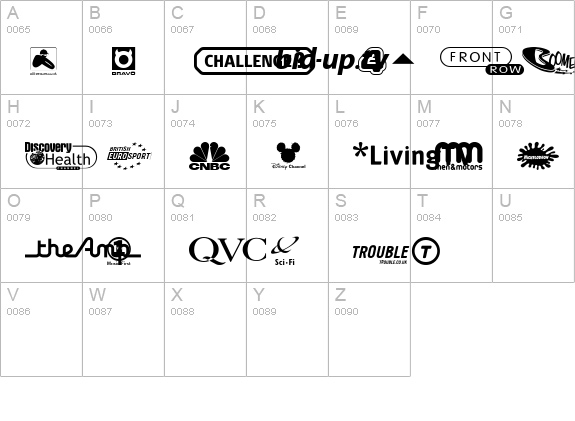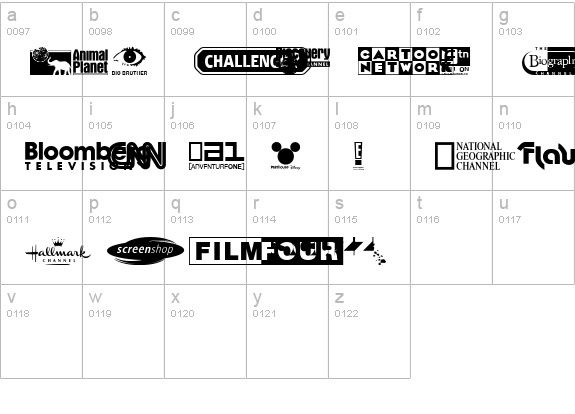
UK Digital TV Channel Logos Font Details
Introducing the UK Digital TV Channel Logos font, a versatile and visually appealing typeface designed specifically for digital television channel logos in the United Kingdom. This font is the perfect choice for broadcasters, designers, and anyone looking to create professional and eye-catching TV channel logos. With its sleek and modern design, the UK Digital TV Channel Logos font effortlessly captures the essence of the digital era, making it the ideal companion for any digital TV brand. Its clean lines and bold letterforms ensure maximum legibility, even at small sizes, ensuring that your channel logo will always stand out. What sets the UK Digital TV Channel Logos font apart is not just its impeccable design, but also its accessibility. This font is freely available to download at FontsMarket.com, making it accessible to everyone, regardless of budget constraints. Now, you can create stunning TV channel logos without having to worry about expensive licensing fees. Whether you're a small independent broadcaster or a major media conglomerate, the UK Digital TV Channel Logos font offers unparalleled versatility. It can be easily customized to match your brand's unique personality, ensuring that your channel logo becomes instantly recognizable to viewers. So why settle for generic or outdated fonts when you can elevate your TV channel logo to new heights with the UK Digital TV Channel Logos font? Download it for free at FontsMarket.com today and unlock a world of creative possibilities. Let your channel logo speak volumes and captivate audiences with this exceptional font.